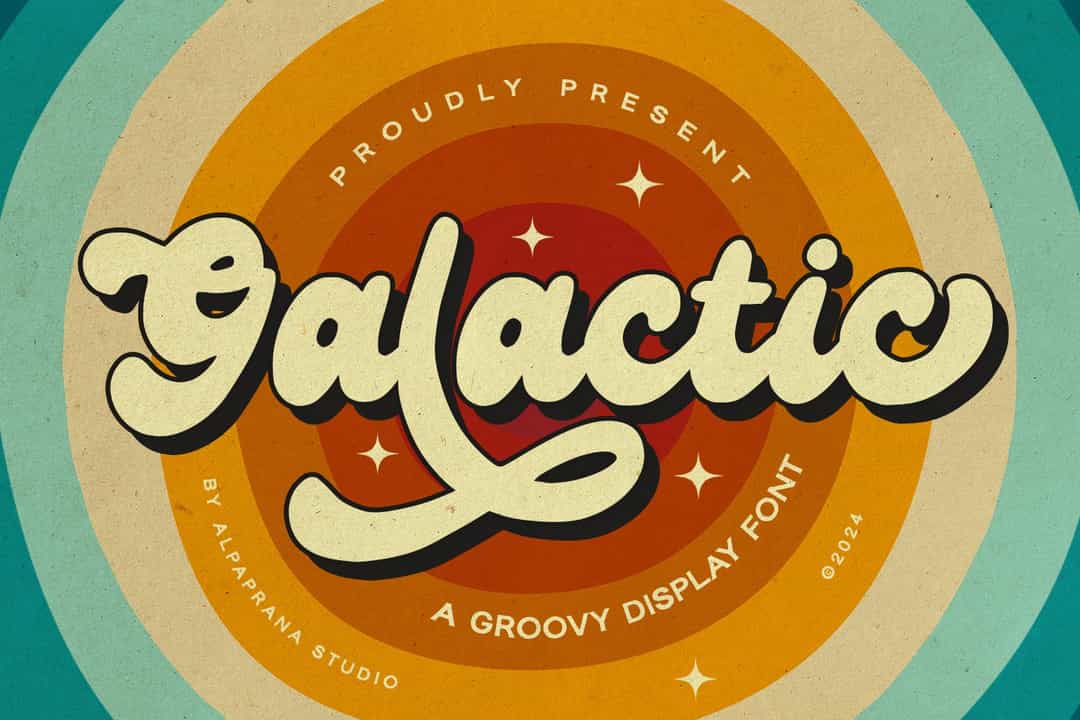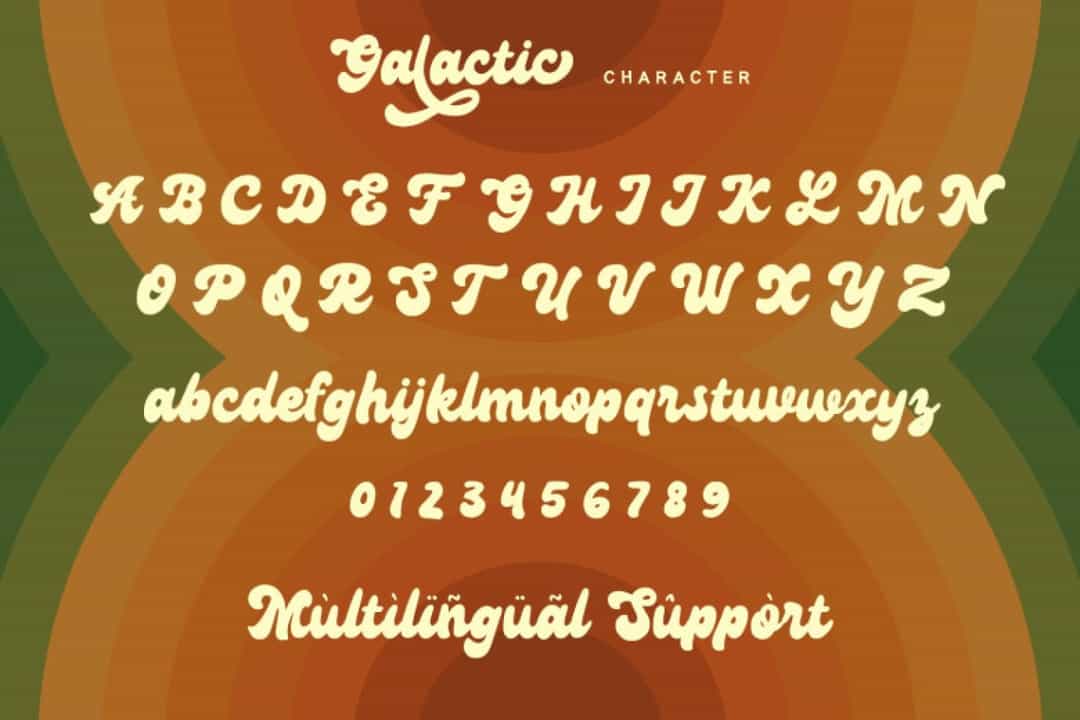
Galactic is an elegant script font with an authentic and classic aesthetic. This font can be used to create logos, branding materials and more; from lettering and logotype design to clothing posters, packaging bags for shopping purposes, posters books t-shirts photography special events photography projects as well as design related tasks and special occasions projects.